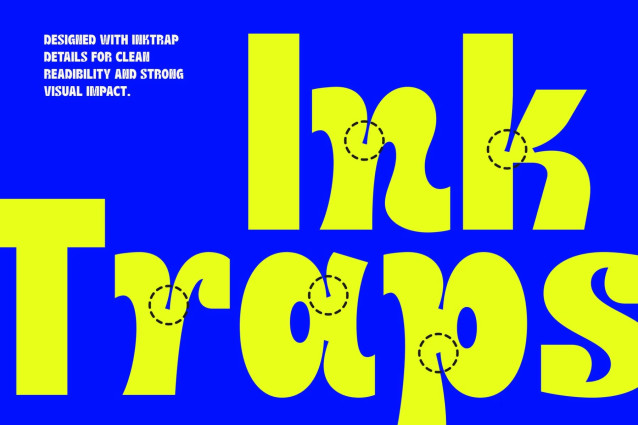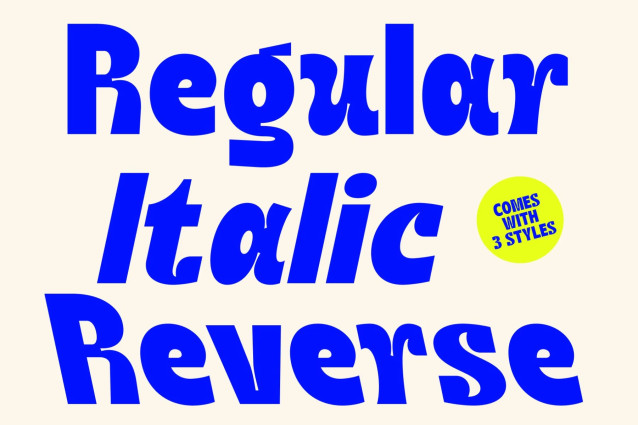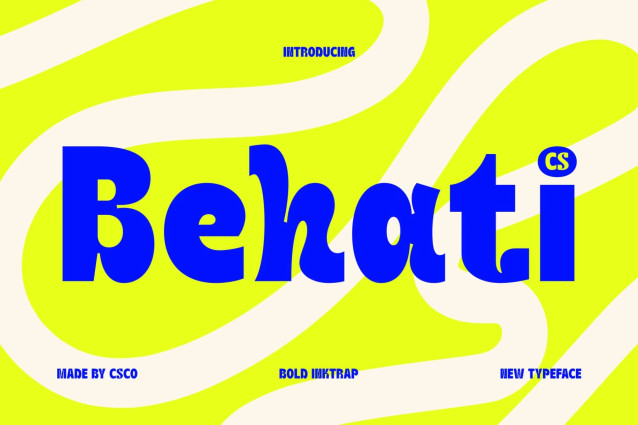
CS Behati – Bold Sans Serif Font: Where Strong Impact Meets Playful Inktrap Design
Powerful Forms with Modern Clarity
This is a bold sans serif font designed to deliver strong visual impact through its confident letterforms and contemporary structure. Its clean construction and balanced proportions ensure excellent readability, while its bold presence makes every word stand out with clarity and authority.
Playful Inktrap Features with Unique Character
This font introduces a distinctive typographic personality that sets it apart from conventional sans serif fonts. These carefully crafted cuts and openings not only improve visual clarity but also add depth, charm, and modern character to each letterform. The result is a font that feels expressive, dynamic, and visually engaging while maintaining a clean and professional appearance.
Bold Design with Exceptional Readability
Blending strong sans serif geometry with functional inktrap styling, this font achieves a balance between impactful design and practical readability. Its refined details enhance the overall aesthetic without compromising legibility, making it suitable for both large scale displays and prominent branding applications.